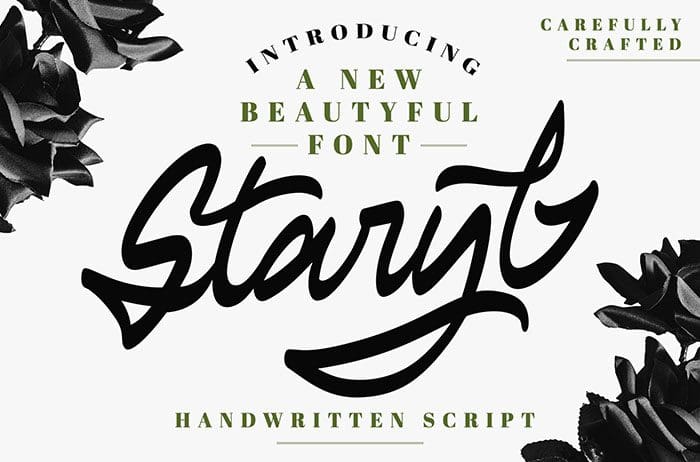
Staryl Handwritten Font
Staryl is a stunning and unique handwritten font with sharp edges and bold swashes. Use it to turn any design project into a standout! Thanks to Vunira Studio for sharing this font! Take a look at this portfolio for more of his stunning fonts.